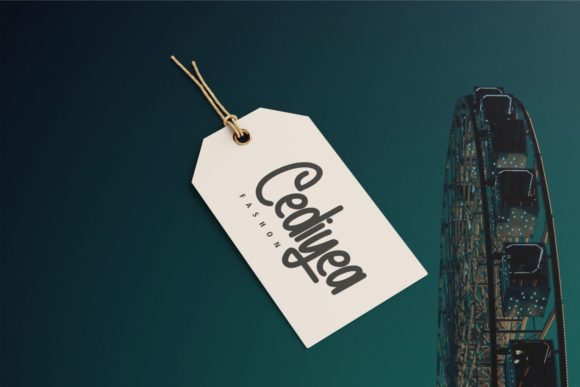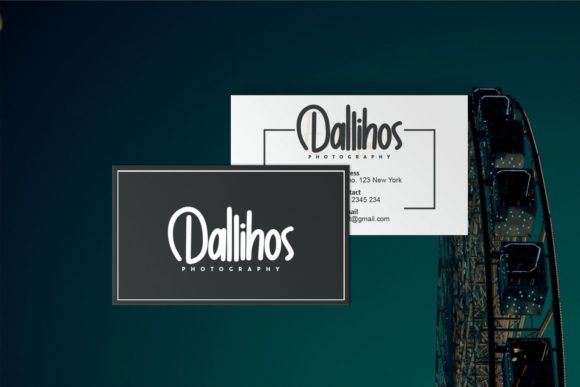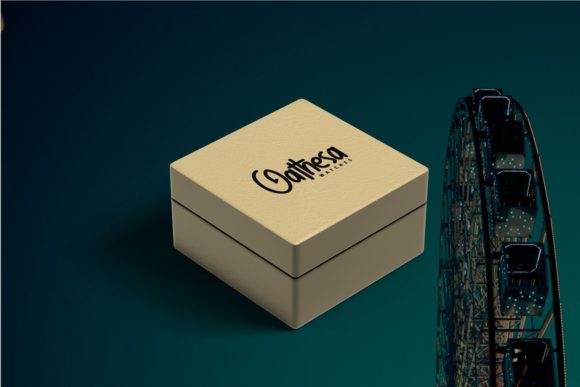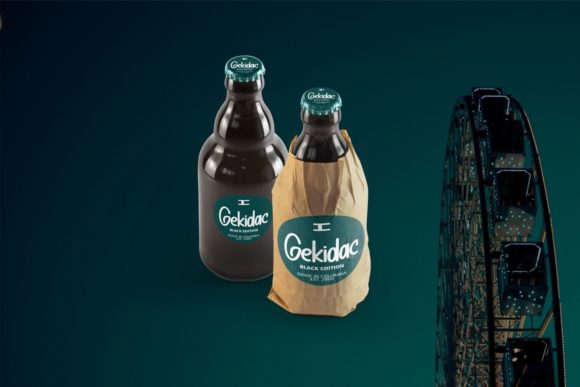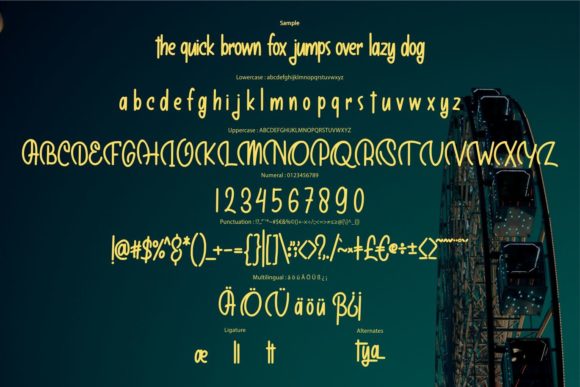
Introduction to Jatheya Font
Have you ever stumbled upon a font that instantly makes you feel like your creative project is going to be a masterpiece? For designers, discovering the perfect font can be a game-changer. And if you’re looking for a stylish and casual handwritten font that exudes confidence, authenticity, and charm, look no further than the Jatheya Font.
Imagine you’re working on a branding project, and you need a font that will give your brand a unique and personal touch. Or, picture yourself creating a set of custom labels for your handmade products, and you want to make them stand out from the crowd. The Jatheya Font is perfect for delivering any message with style and panache, and it’s available for free download, making it an invaluable design resource for creatives.
Key Features of Jatheya Font
- Unique Script Style: Jatheya Font offers a beautiful and elegant script style that is perfect for creative projects requiring a touch of sophistication.
Honest Review: Jatheya Font
As a designer, I’m always on the lookout for high-quality design resources that can elevate my creative projects. The Jatheya Font is one such resource that caught my attention.
- ✨ Unique and elegant design aesthetic
- ✨ Highly customizable with a range of weights and styles
- ⚠️ Limited language support, which may be a concern for designers working on multilingual projects
Overall, I’m impressed with the Jatheya Font’s unique design and high-quality font files. While it may have some limitations, it’s still a valuable addition to any designer’s toolkit, especially for those working on creative projects that require a touch of elegance and sophistication.
How to Use Jatheya Font
The Jatheya Font is a high-quality design resource ideal for creative projects. With its unique style and transparent background, this font is perfect for designers looking for a versatile design element.
Getting the Most Out of Jatheya Font
Here are some tips to get the most out of the Jatheya Font:
- Combine the Jatheya Font with other design elements to create visually appealing designs.
- Use the font’s transparent background to create a sense of depth and dimension.
The Jatheya Font is ideal for:
- Creating eye-catching titles and headings.
- Designing logos and branding materials.
- Adding a touch of elegance to presentations and documents.